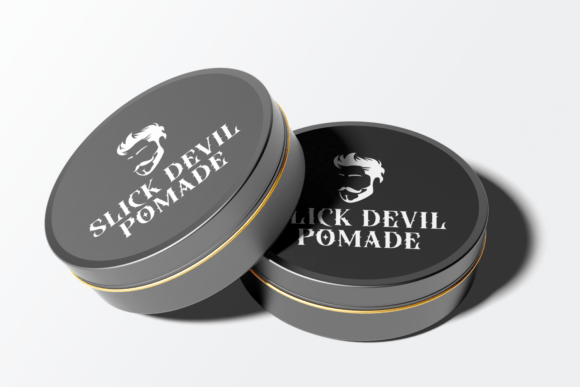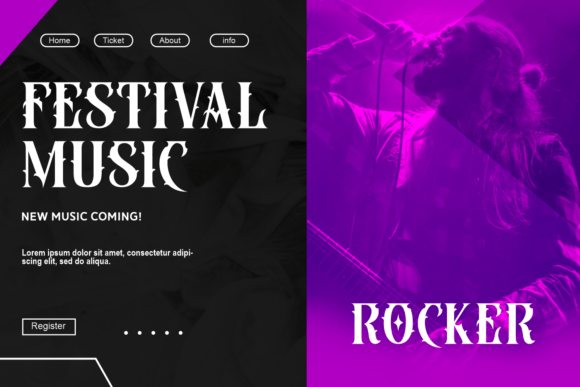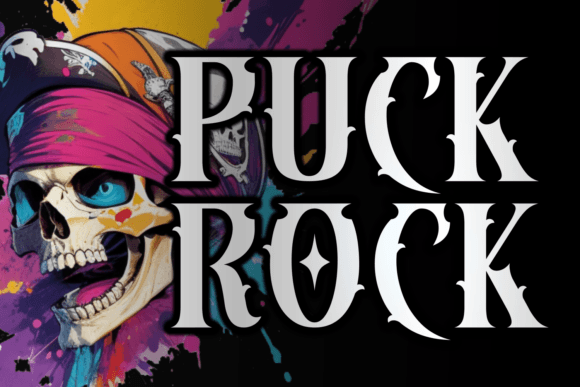
Introduction to Flame Sword Font
Flame Sword is a fiery blackletter font ignited with bold, angular strokes and sharp edges.
Its molten design evokes the essence of blazing swords and medieval strength, making it perfect for logos, fantasy themes, tattoos, or dramatic headlines that demand attention .